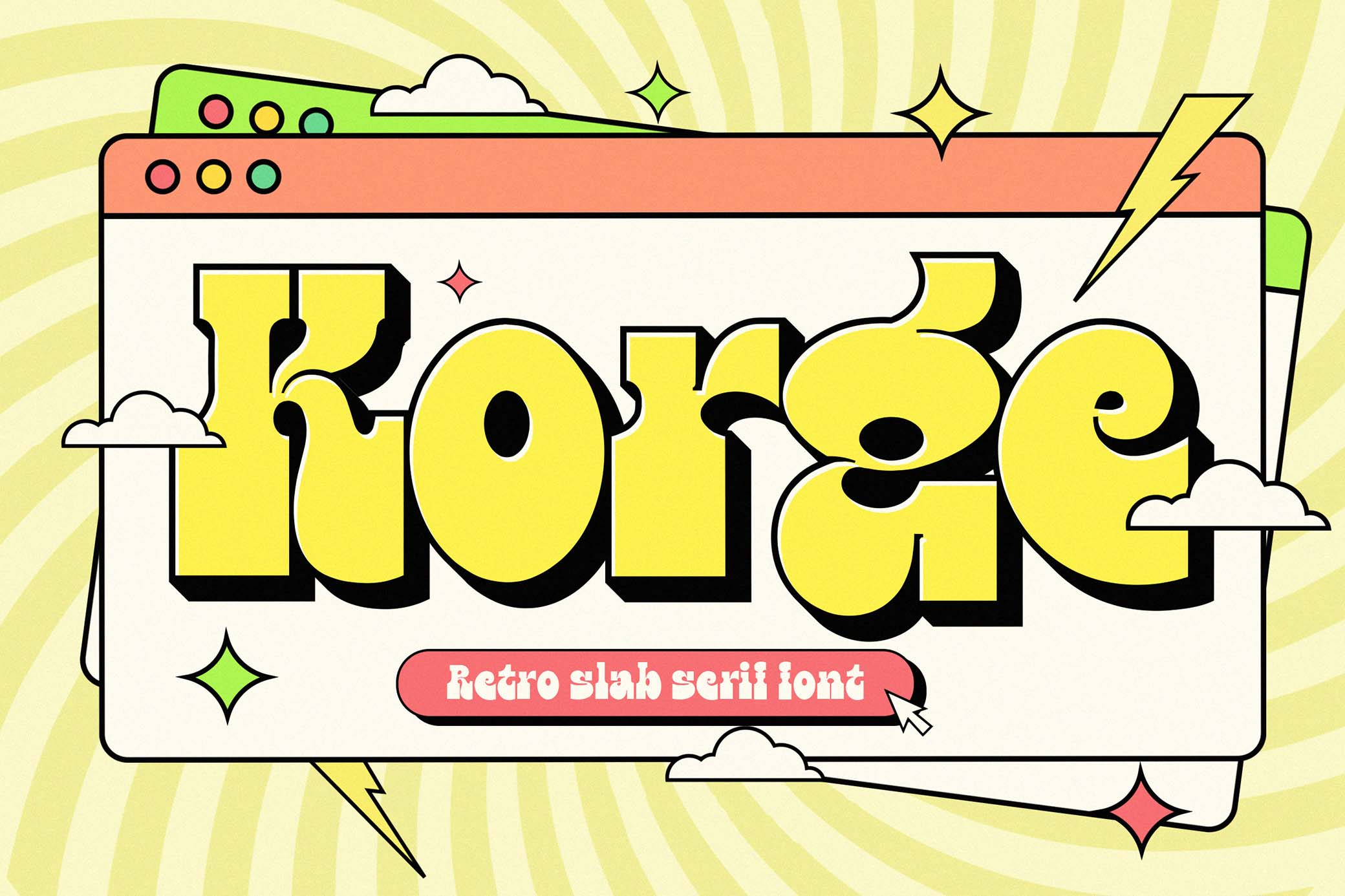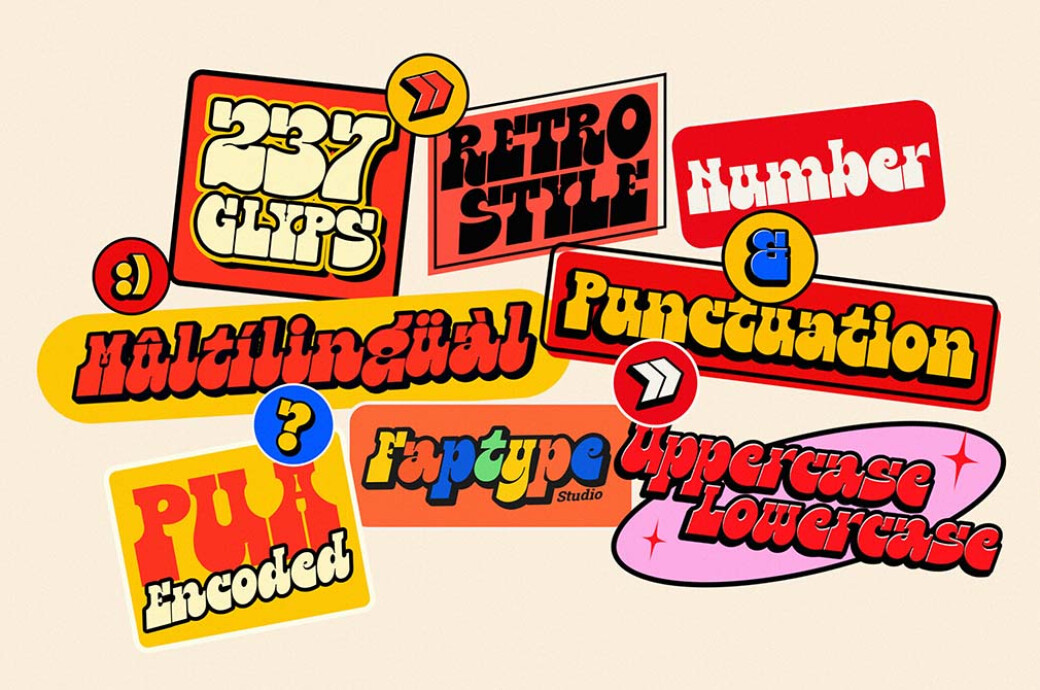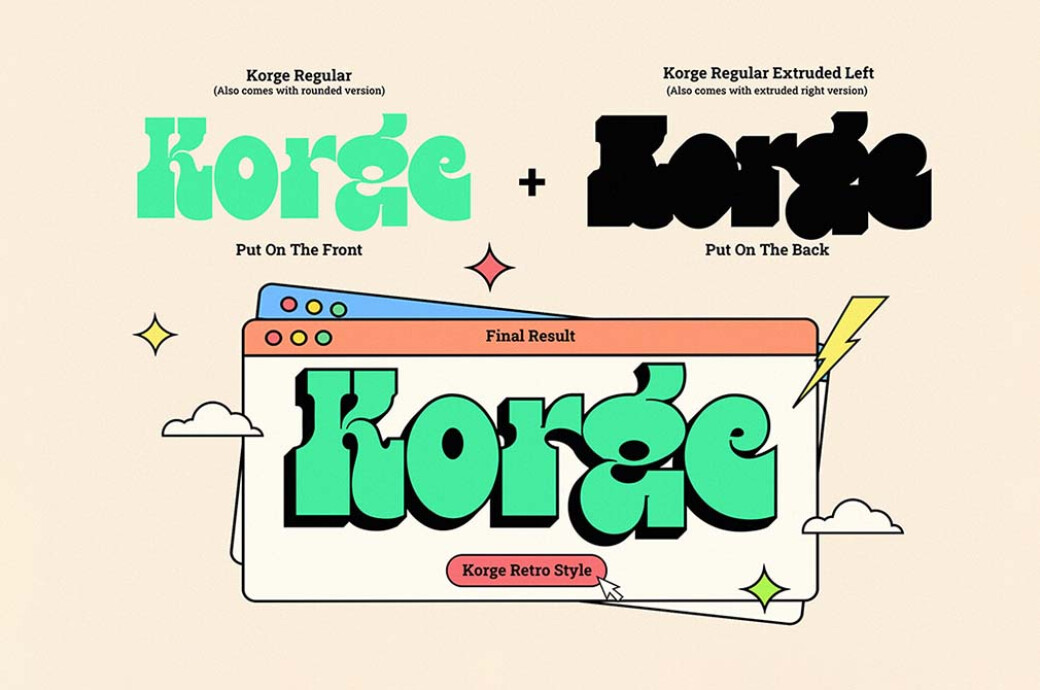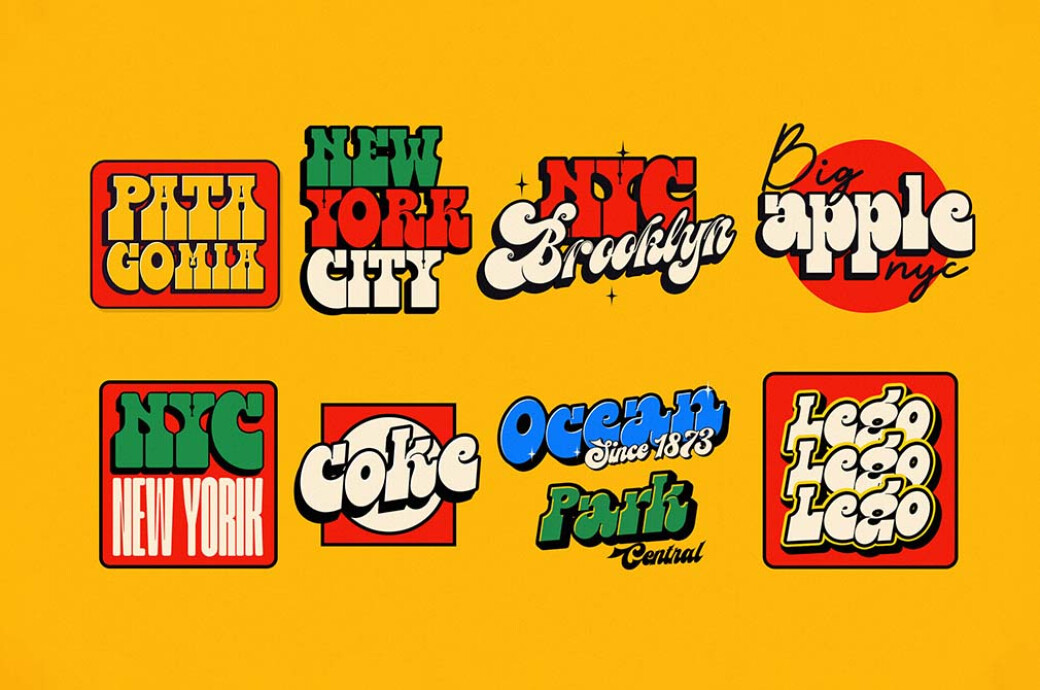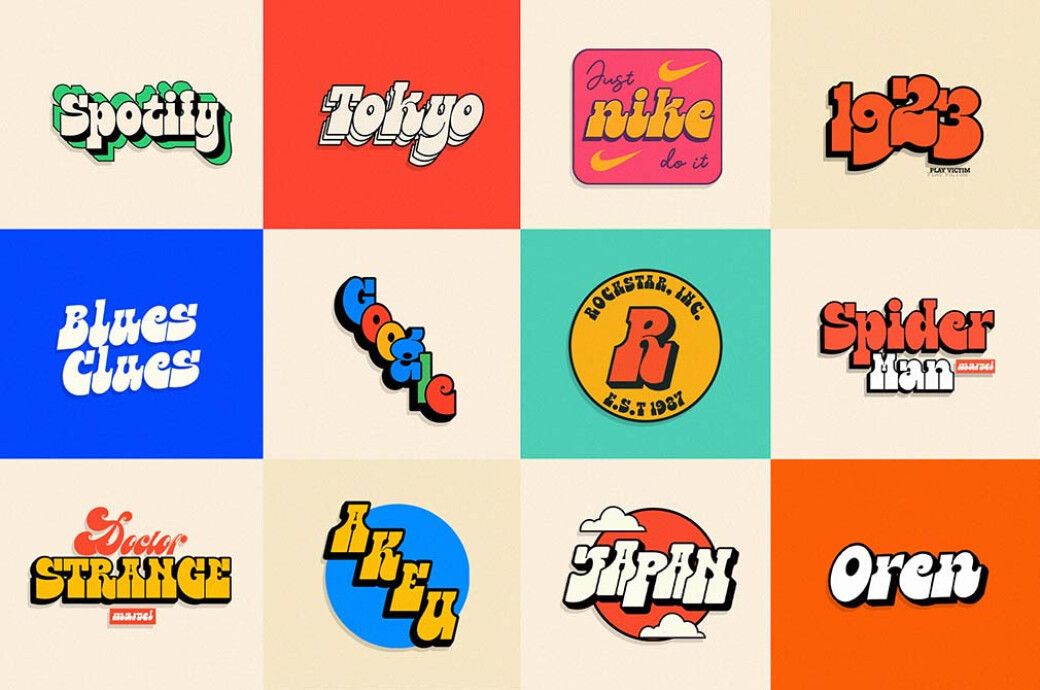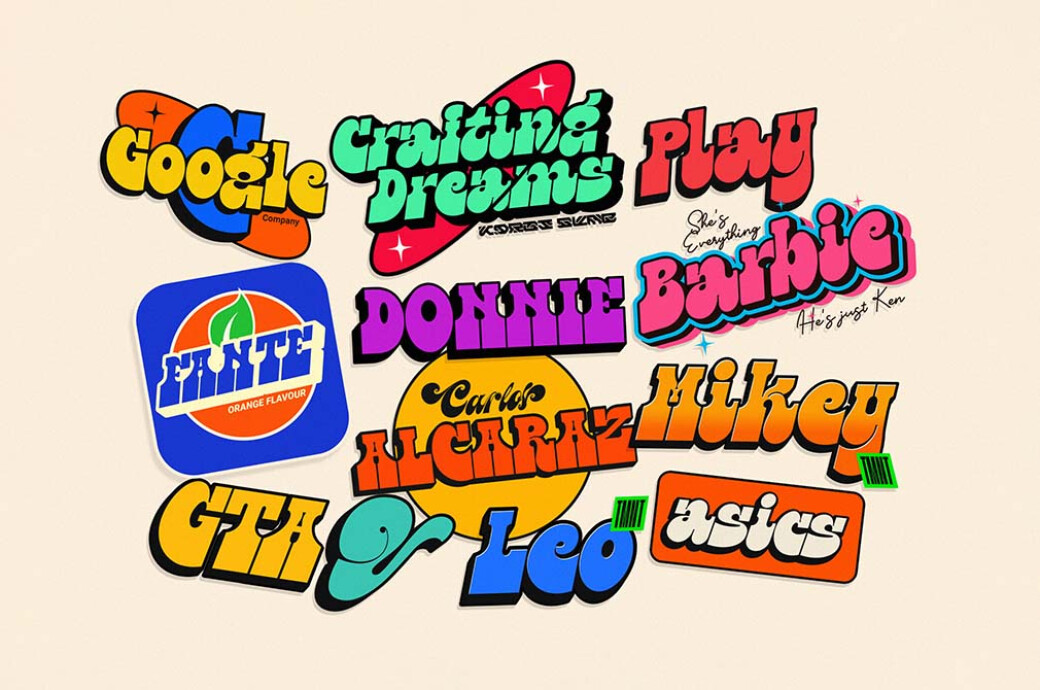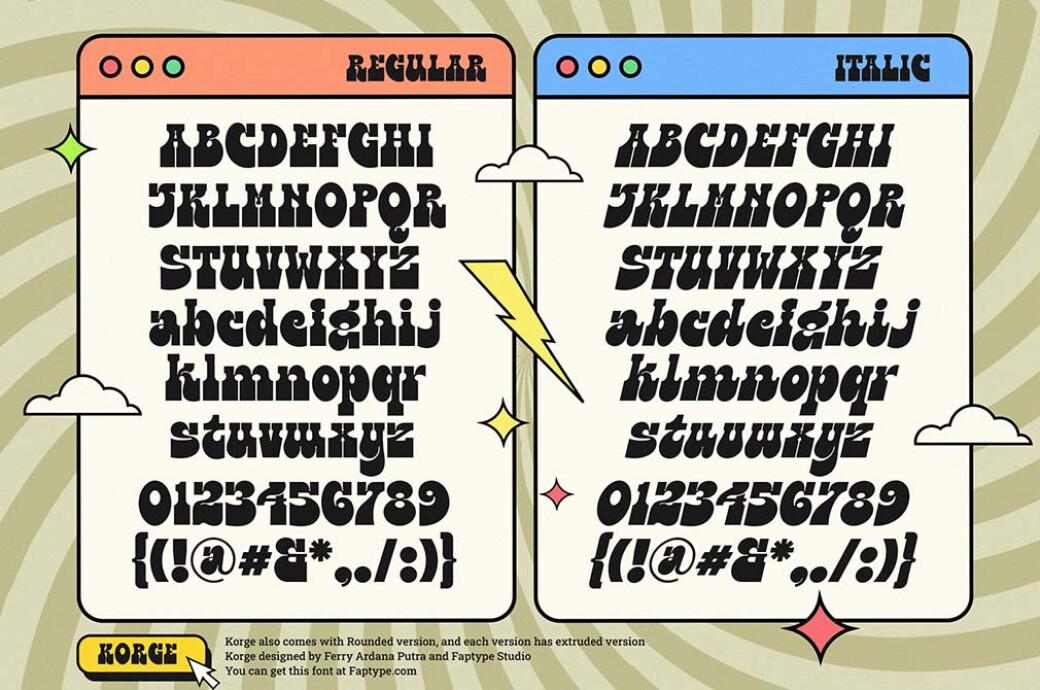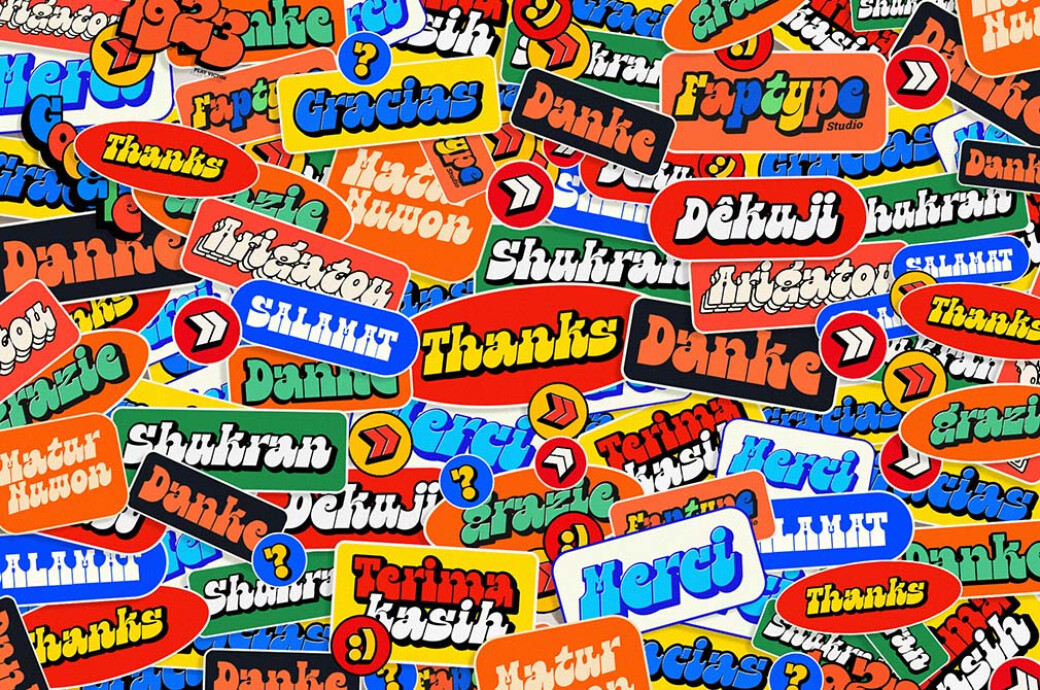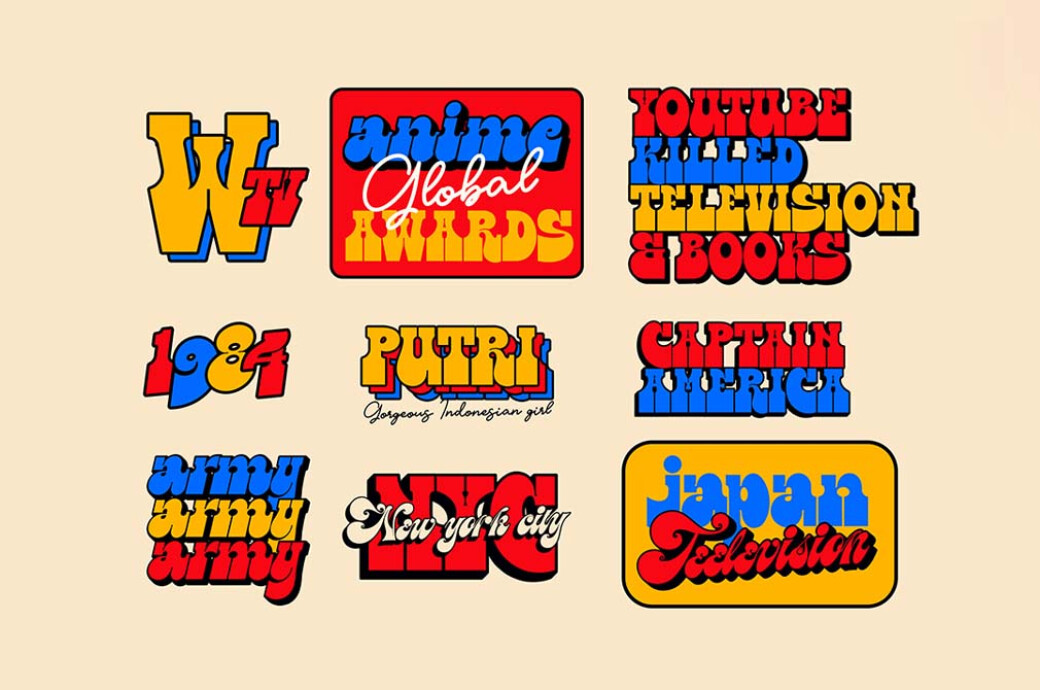
Korge — Bold Slab Font
Korge is a captivating retro slab serif font that seamlessly marries vintage aesthetics with modern functionality. With its bold design and a trio of versions, it offers a wealth of creative possibilities for your design ventures.From logo design to branding, packaging, posters, and beyond, Korge adapts seamlessly to a wide array of design projects. The font provides three distinct styles to choose from: regular, rounded, and extruded. Each style has a complete character set, including numbers, punctuation, international characters, and OpenType features.